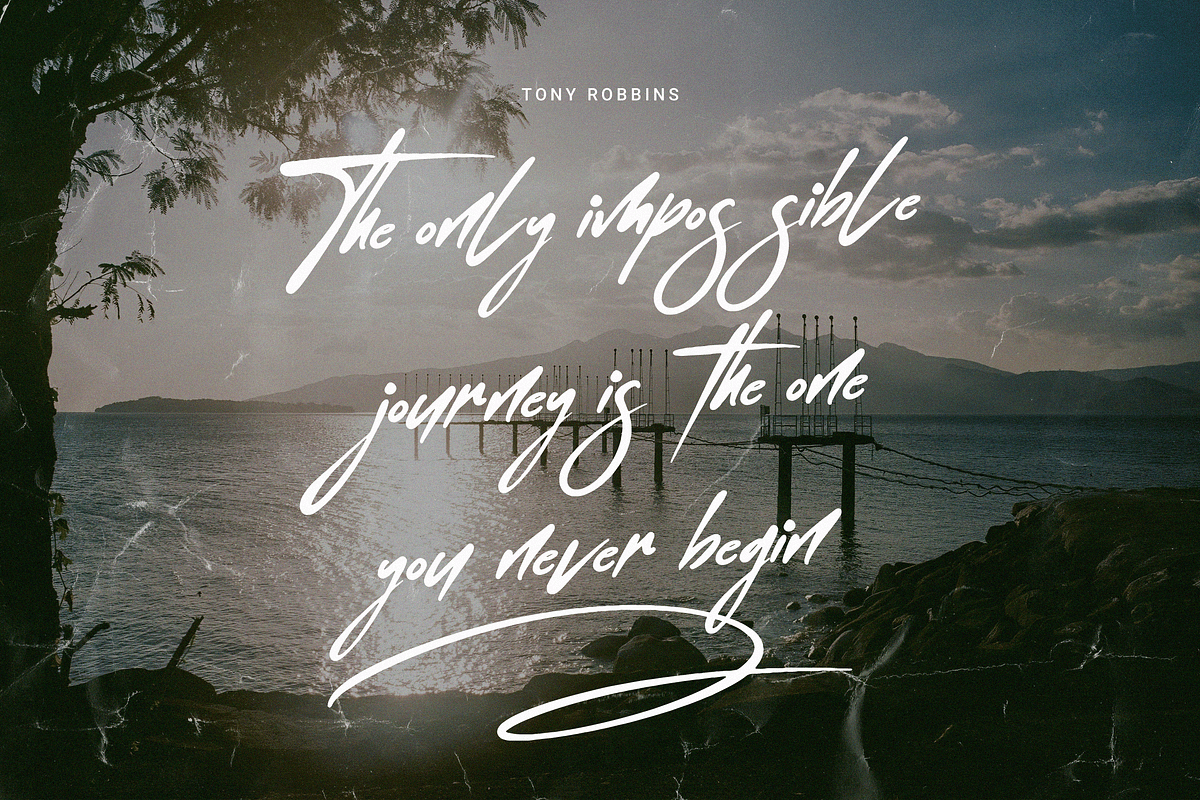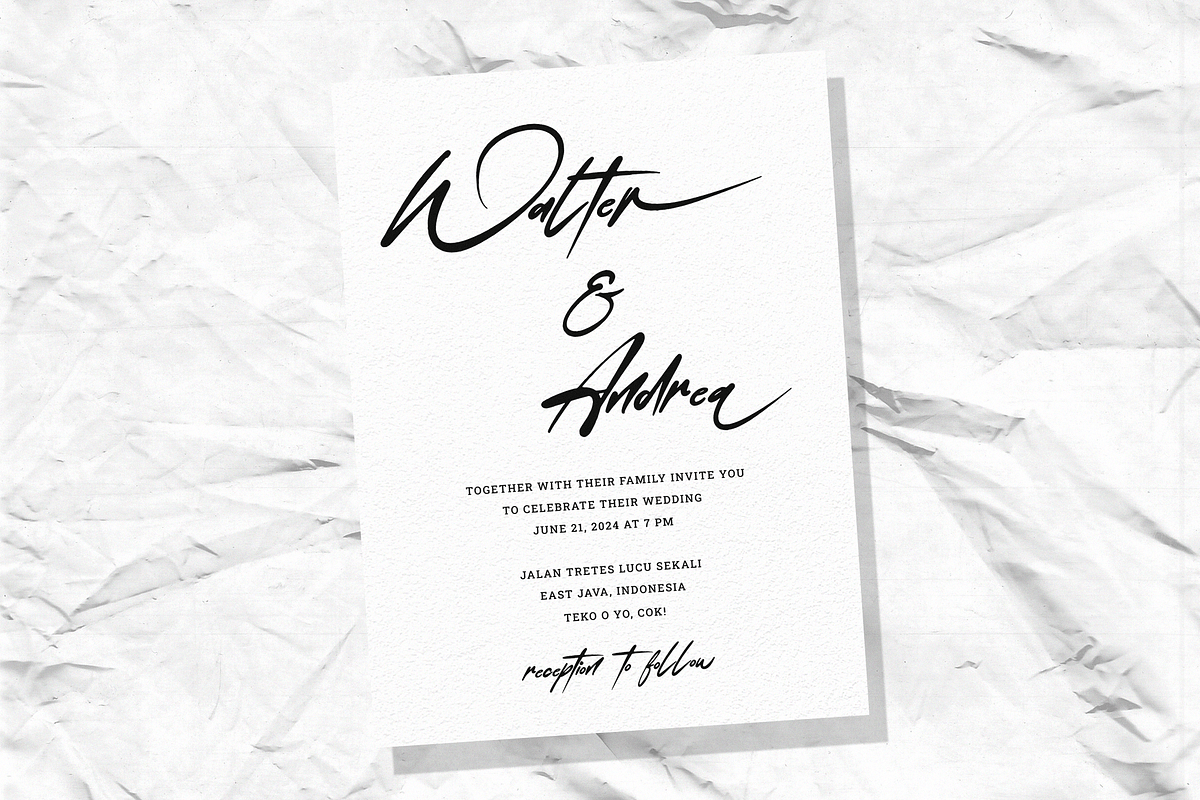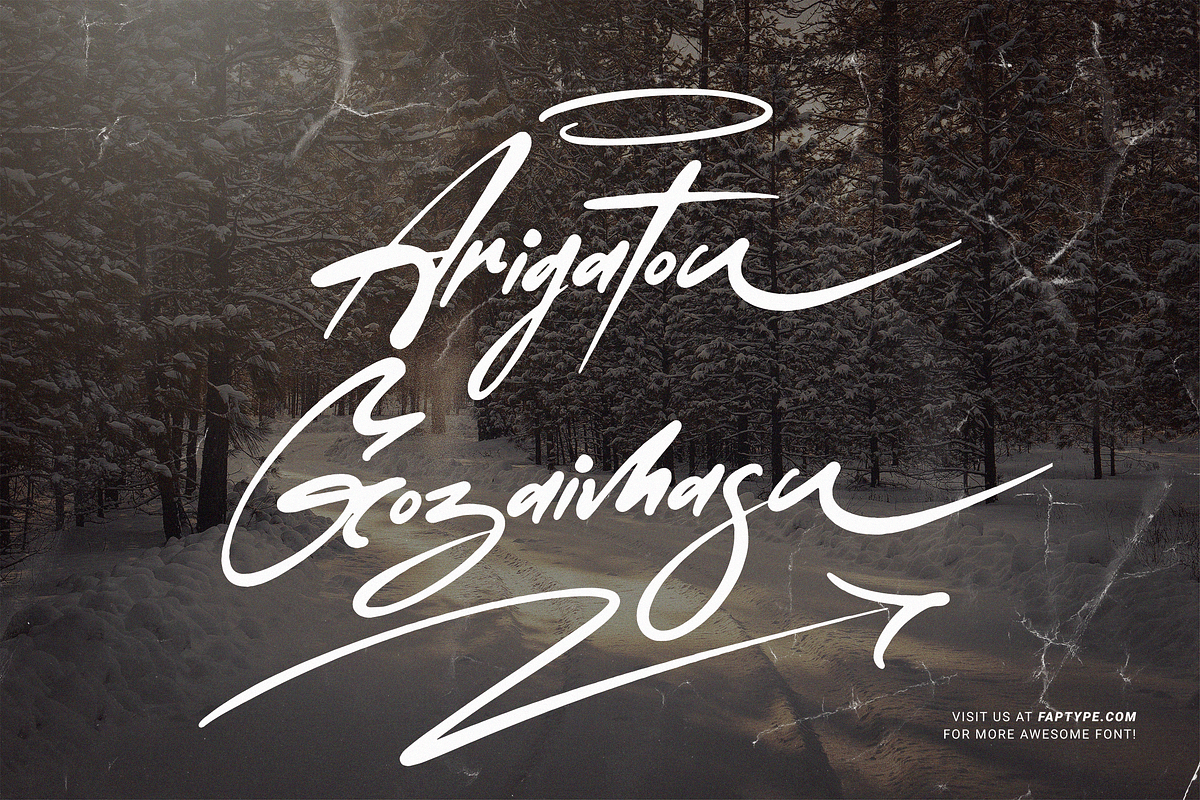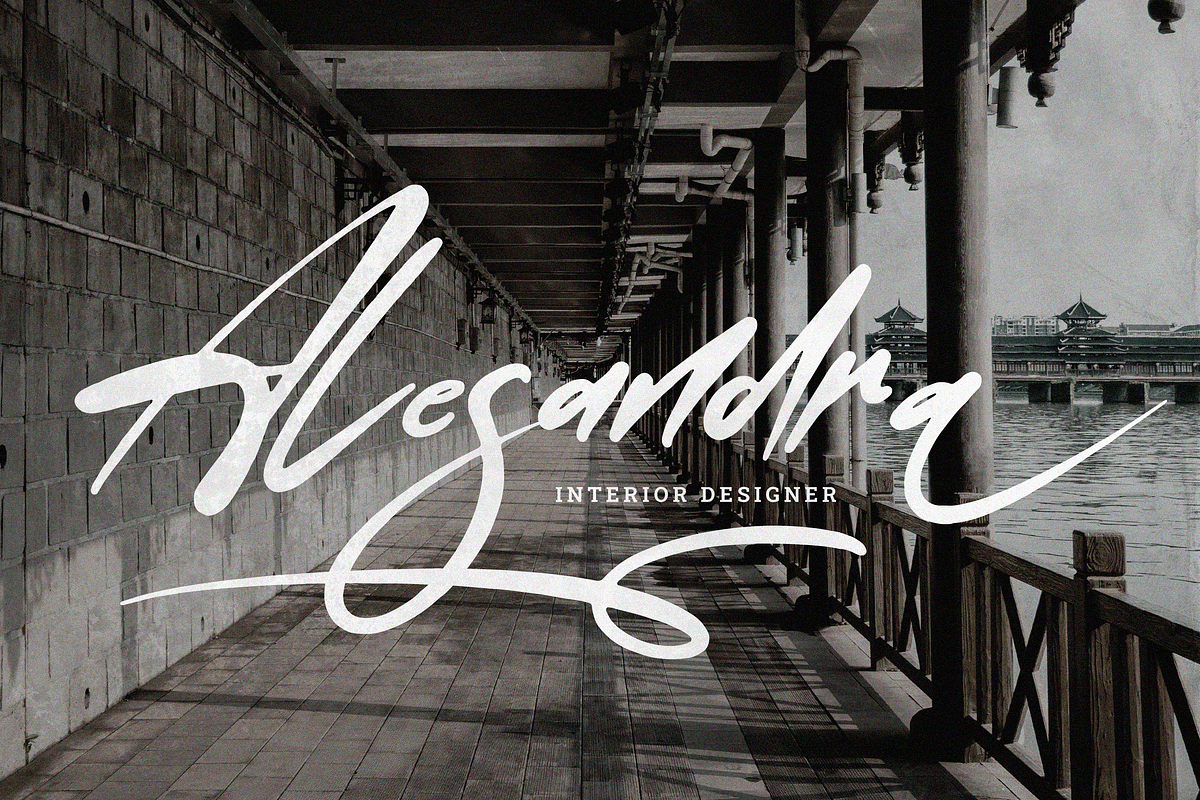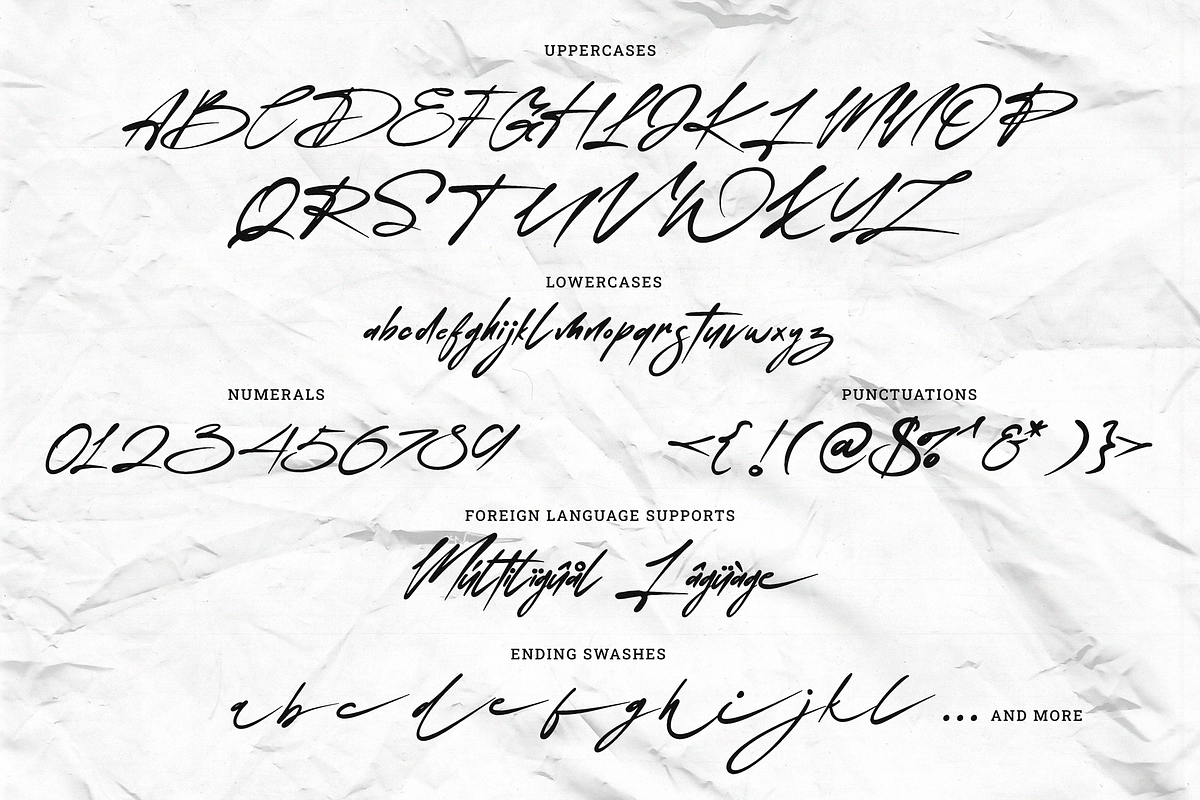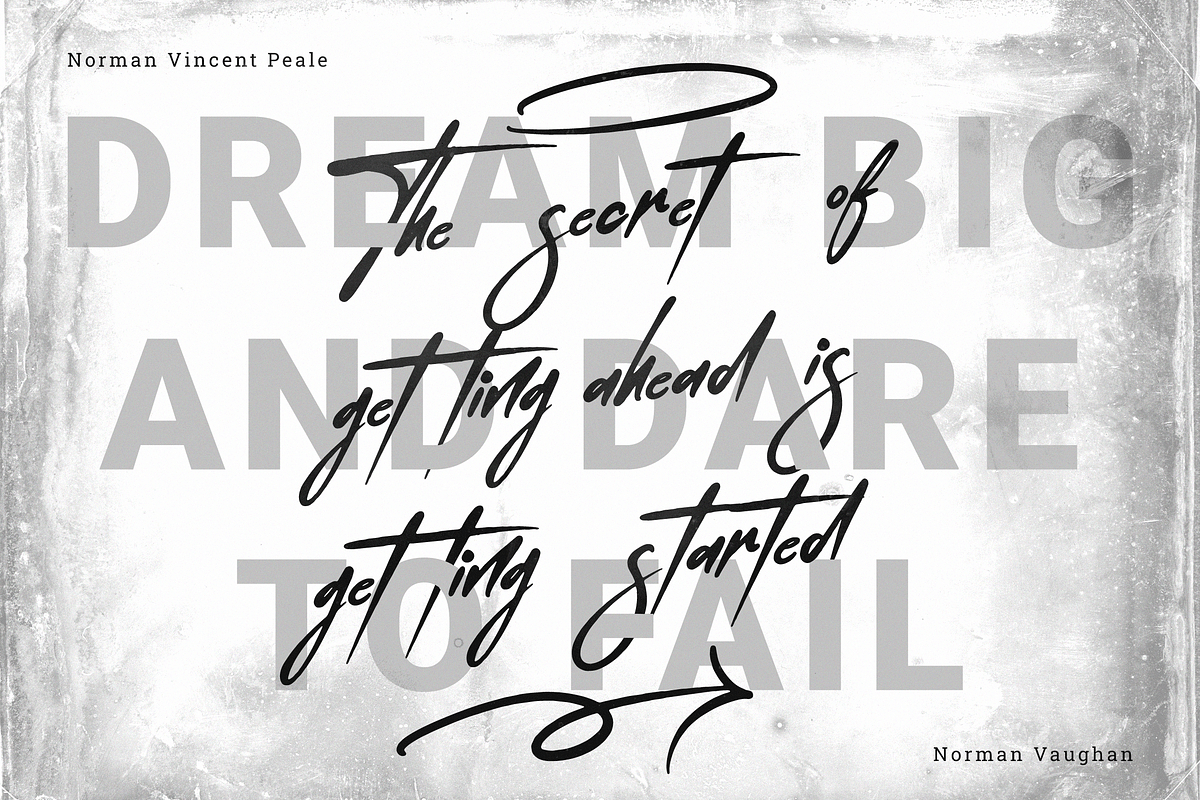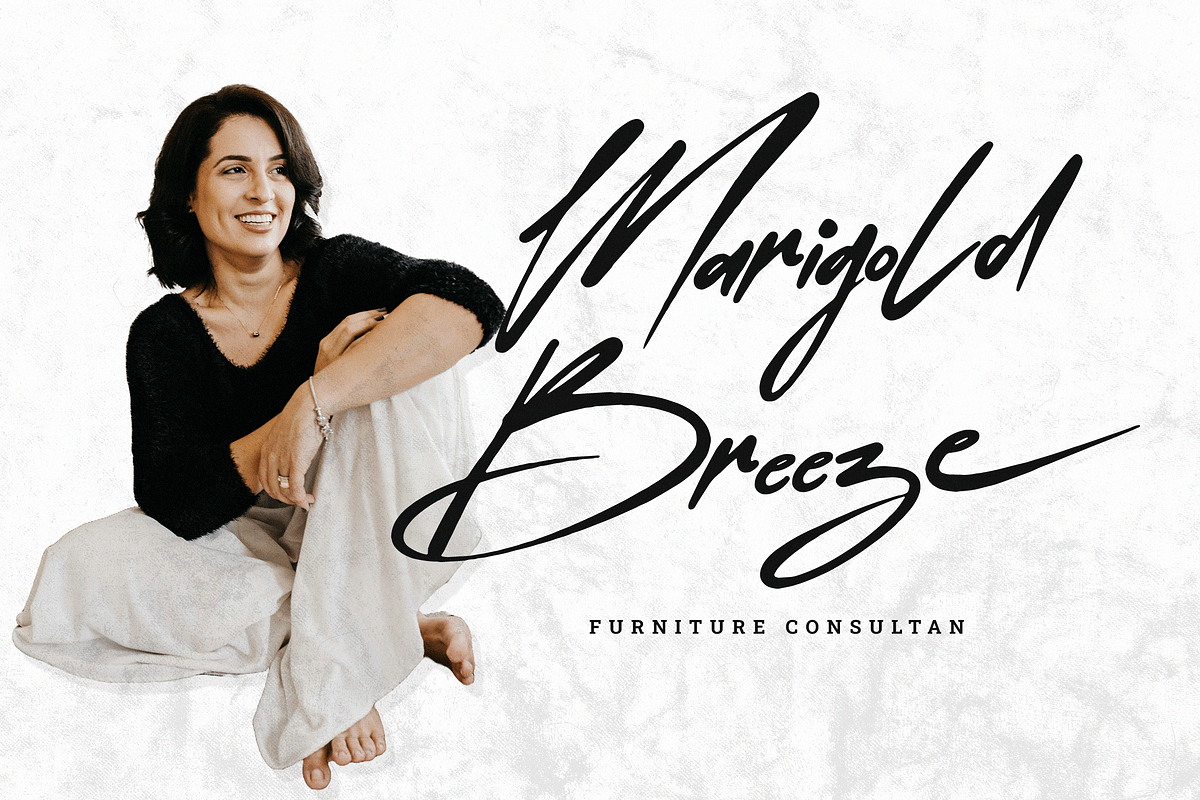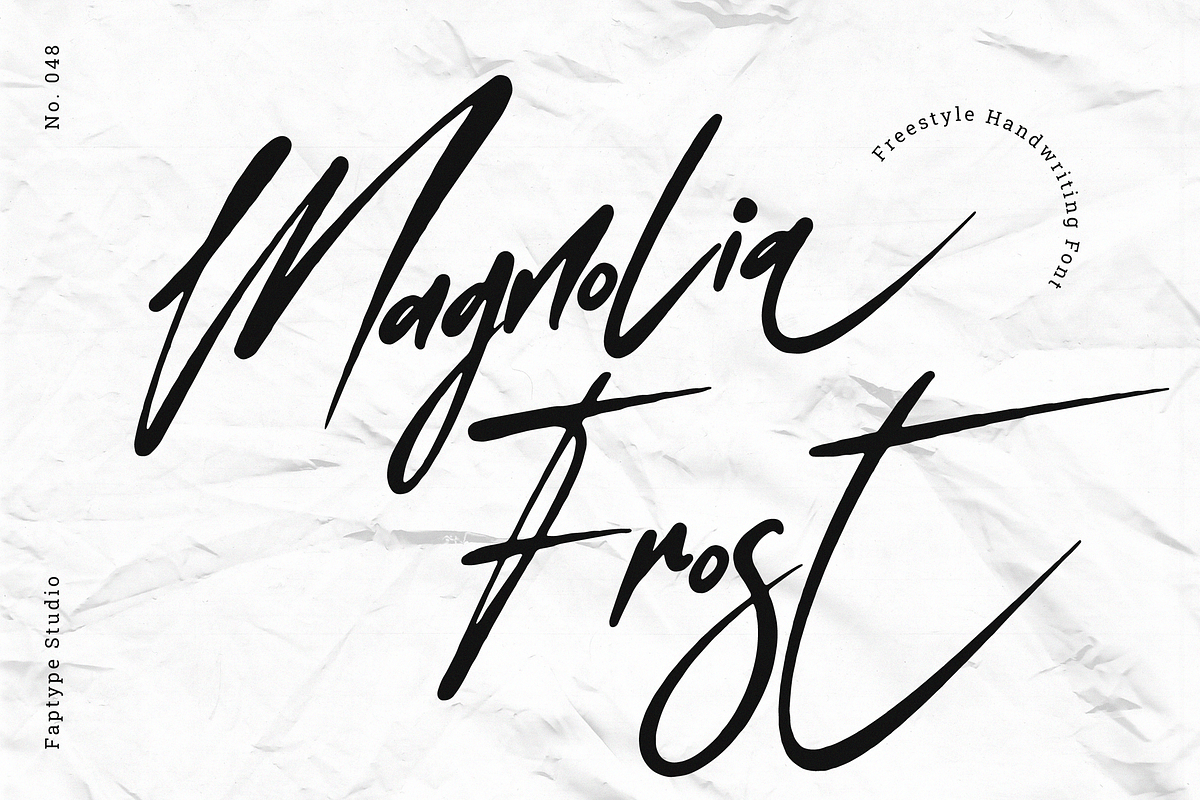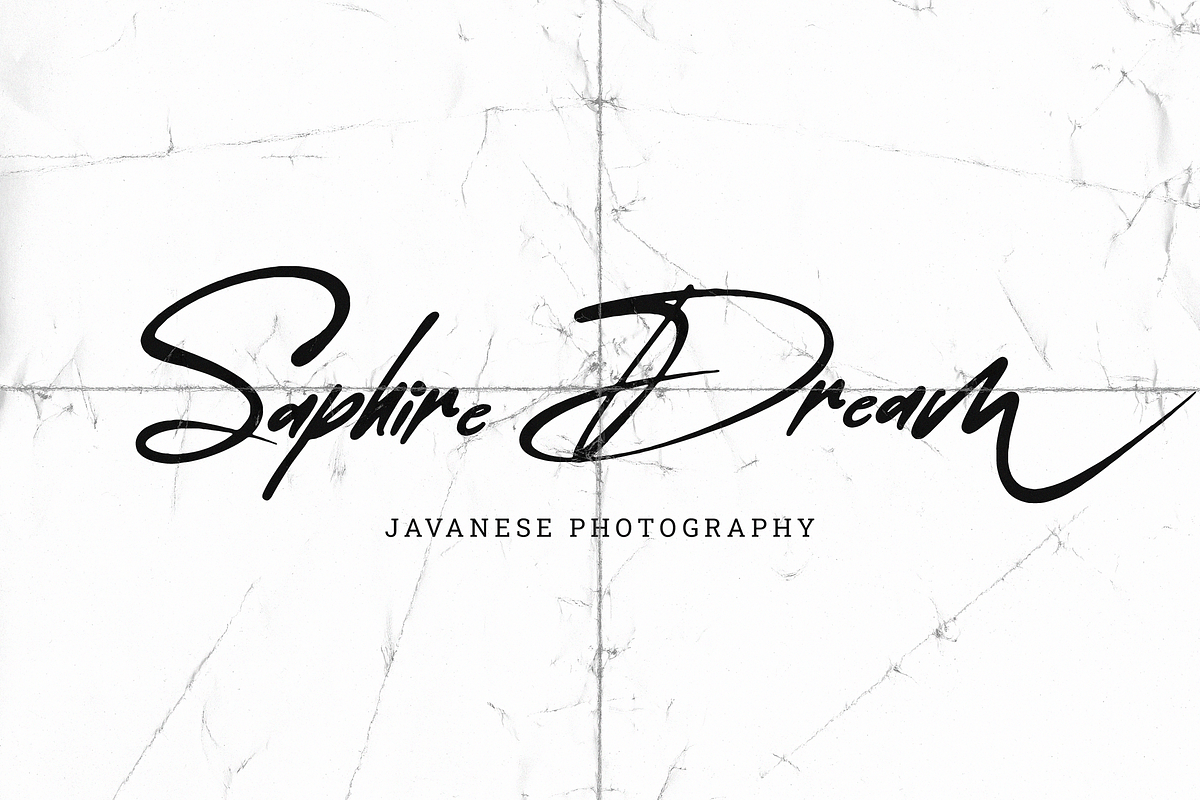
Magnolia Frost | Handwriting Font
Magnolia Frost is a captivating freestyle handwriting font designed to infuse elegance and personality into your projects. This versatile font supports multiple foreign languages, making it perfect for a global audience. With both uppercase and lowercase letters, Magnolia Frost provides flexibility and sophistication for any text.
Inspired by the fluidity and charm of natural handwriting, Magnolia Frost offers a unique, organic feel that truly stands out. It also includes a variety of freestyle script ornaments, adding a decorative and artistic touch to your designs. Ideal for invitations, logos, social media graphics, and more, Magnolia Frost enhances your work with its graceful and creative style.
Embrace the beauty of handwritten artistry with Magnolia Frost, a font that seamlessly combines elegance and personal flair.
Magnolia Frost features:
- A full set of upper & lowercase characters
- Multilingual language support
- Dozens of Swashes
- OpenType Features
- Up to +403 Total Glyphs
- Up to +140 Total Ornament addons
- Ending Swashes